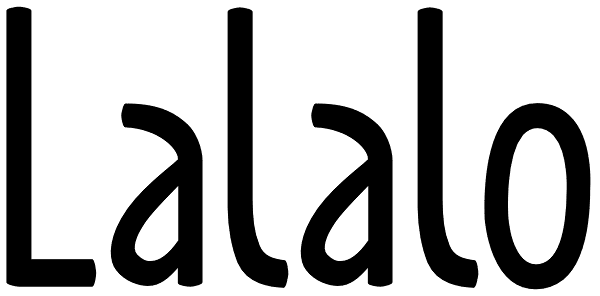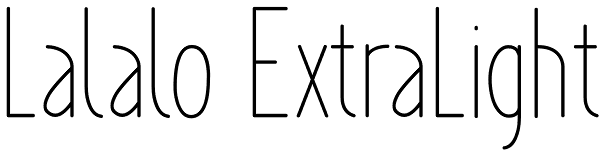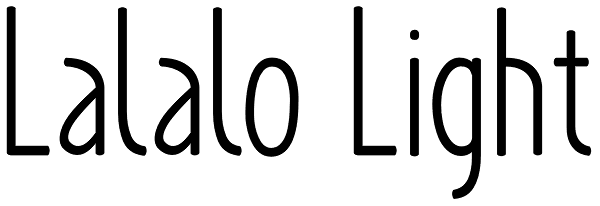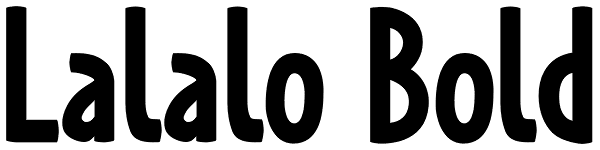
Lalalo
Lalalo is a casual, modern sans-serif font family based on hand-lettering. It's oval letter shapes provide soft and friendly appearance. Lalalo font is very legible with a warm touch perfectly suited for children books. Lalalo family consists of 6...